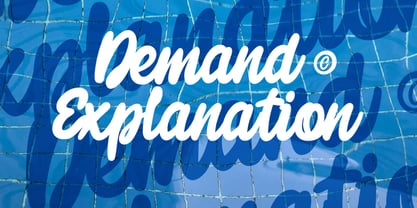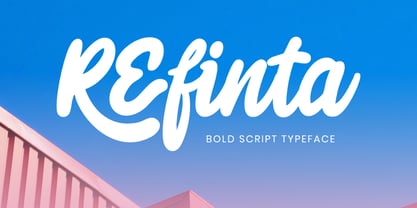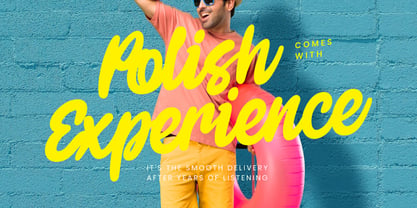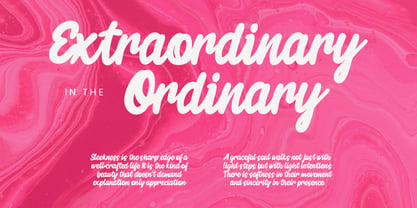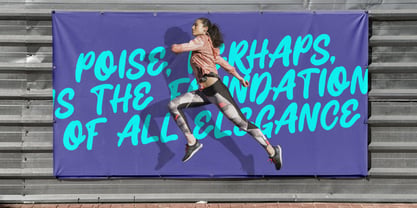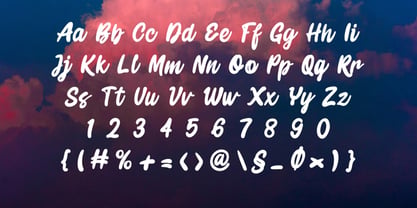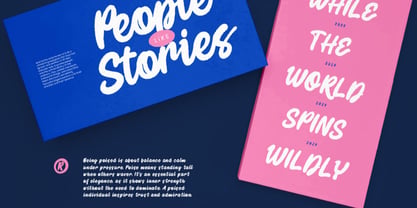
Refinta
von Brandearth
Die Schriftfamilie Refinta wurde von Moch Rasjid Wiyono entworfen und von Brandearth veröffentlicht. Refinta enthält 1 Stile. Mehr über diese Familie
Refinta is a bold handwritten script typeface built with thick brush strokes, smooth curves, and confident flowing connections. It delivers an energetic and friendly personality with natural rhythm, making every word feel lively and expressive. The font includes uppercase, lowercase, numerals, punctuation, and multilingual support. Refinta brings a warm and energetic tone to visual communication, making it highly relevant for lifestyle branding, fashion labels, food and beverage packaging, social media graphics, posters, merchandise, and expressive headlines where personality and movement are essential.
Designer: Moch Rasjid Wiyono
Foundry: Brandearth